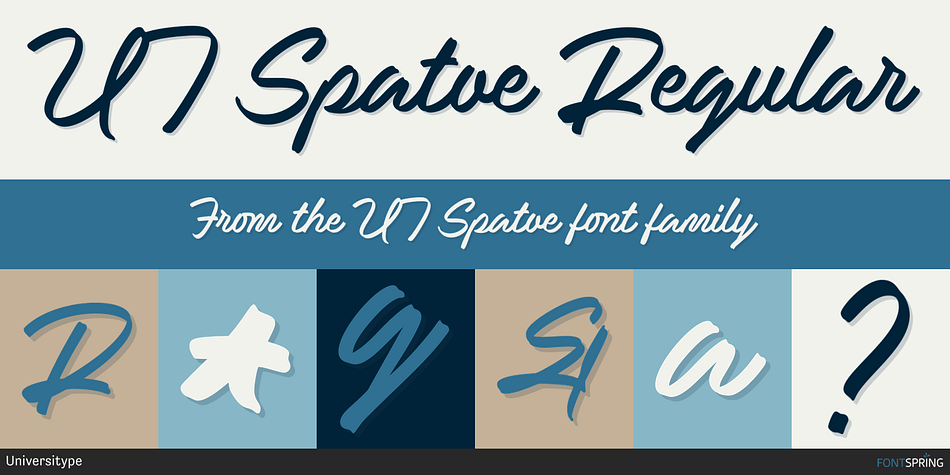
UT Spatoe Regular
UT Spatoe is a sans serif font family. This typeface has two styles and was published by Universitype.
Meet UT Spatoe Font Duo, an exquisite font set that combines modern design with the art of storytelling.
UT Spatoe Sans is a font dominated by the streamlined and self-assured strokes of a shoe platform which leads to a clear-cut sans-serif that embodies a modern design.
In contrast, UT Spatoe Script has the flexibility of shoelaces, meaning it is handmade and expressive. On the one hand, it is a creative piece of art that is elegantly designed, on the other hand, it is a precise and technical font.
Target Audience:
Designers, brand strategists, and creatives who want to inject sass and creativity into their work are hereby invited to this duo. If you are coming up with edgy branding or using a friendly voice when you design editorial, UT Spatoe is a good fit for you. Adding a human touch is important for editorial designs.
Key Features of UT Spatoe:
– Versatility: Becomes the perfect middle ground between the technical and the artistic.
– Legibility: The character shapes are conspicuously visible, thus readability is ensured even at larger sizes. You can now type headlines and texts.
– Unique Attributes: The sans-serif has a soft line which is related to the flexible curvature of a shoe sole while the script’s ligatures get the impression of flowing laces.
– Stylistic Options: Designs can be customized using the available alternates, stylistic alternates, and ligatures for a personalized typography experience.
Inspiration Behind the Design:
The main concept for this shoe, which borrows its elements from a sneaker’s structure, portrays both the well-defined geometry of the sole and the organic, fluid design of the laces. The sole, whose solid and dependable form serves as a metaphor for strength and stability, is complemented by the laces, which are gently and swiftly moving and thus suggest adaptability and expression.
This thoughtful juxtaposition not only highlights the functionality and aesthetic balance of the design but also reflects the interconnectedness of movement, creativity, and practicality. It’s a cohesive representation of how structure and flexibility can coexist harmoniously, embodying the spirit of innovation and everyday versatility.
Unique Typography for Editorial and Printing Design:
– Branding: Best for footwear, lifestyle, or fashion brands that are looking for a cutting edge but friendly approach.
– Marketing Materials: Appropriateness comes in handy for running catchy campaigns, designing posters, and placing them in ads.
– Websites: Glamorous items such as the banner, the menu, and the blog title will be improved.
– Product Packaging: Logos, and tags that remain the skin of memory.